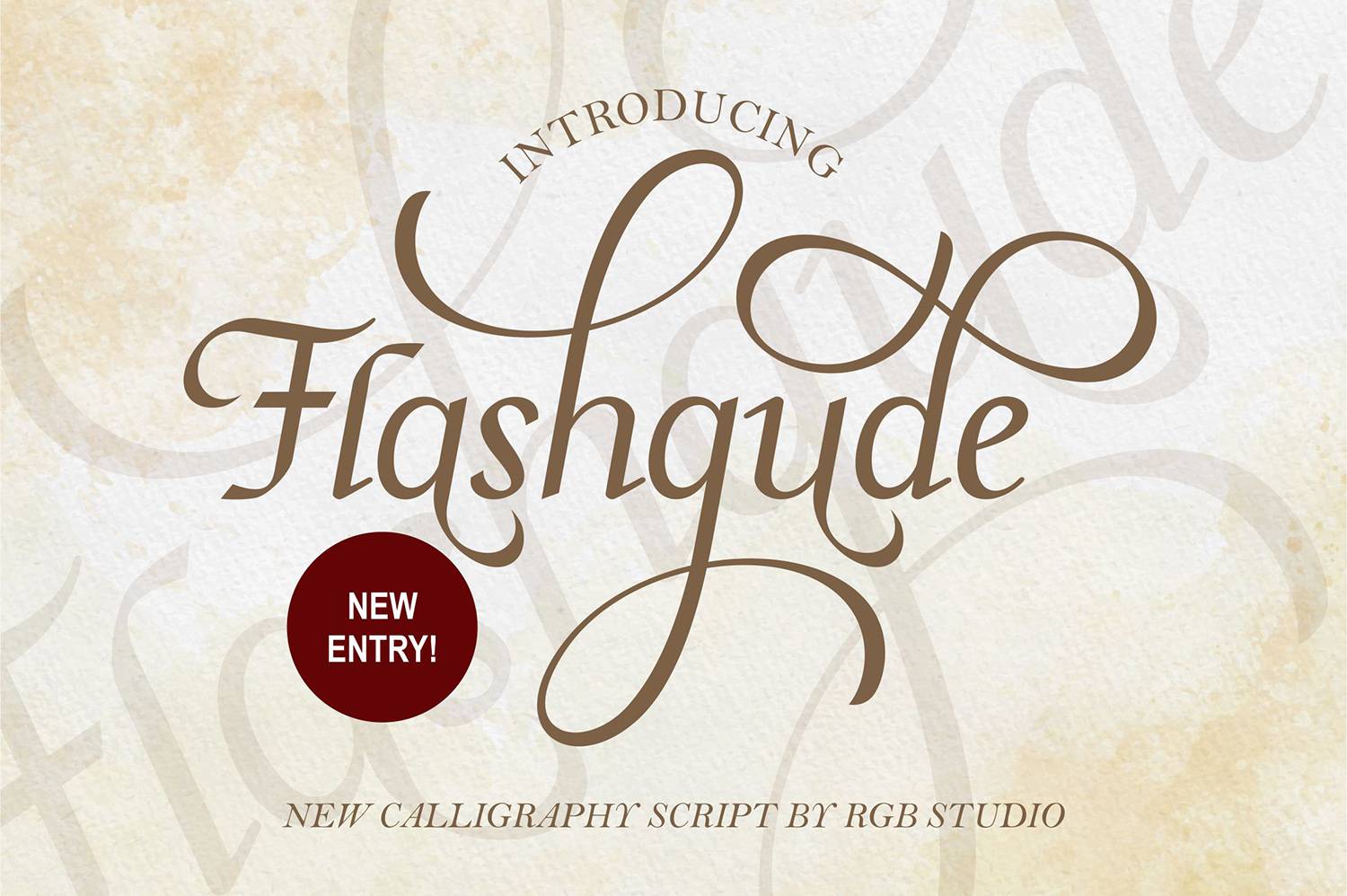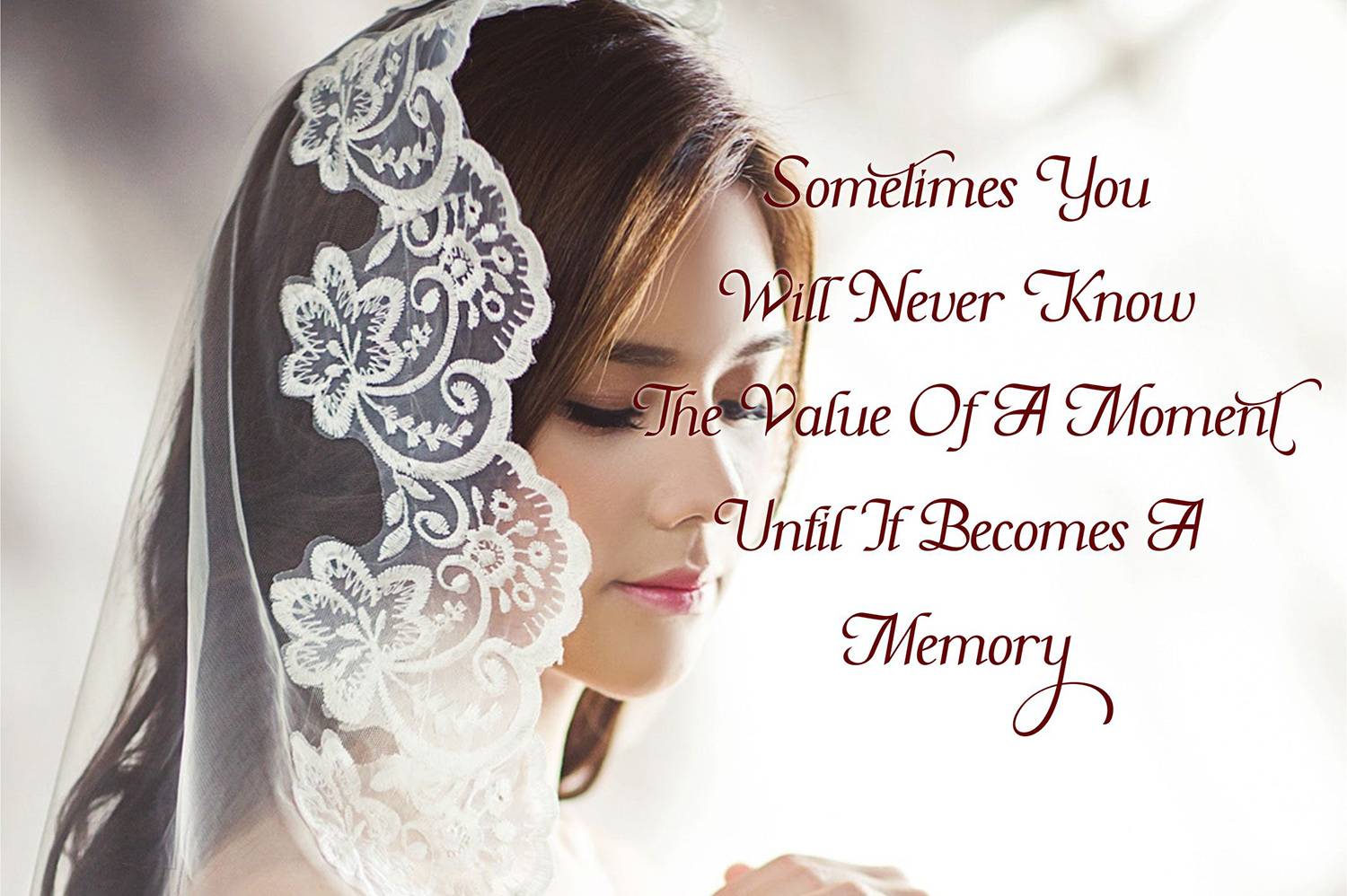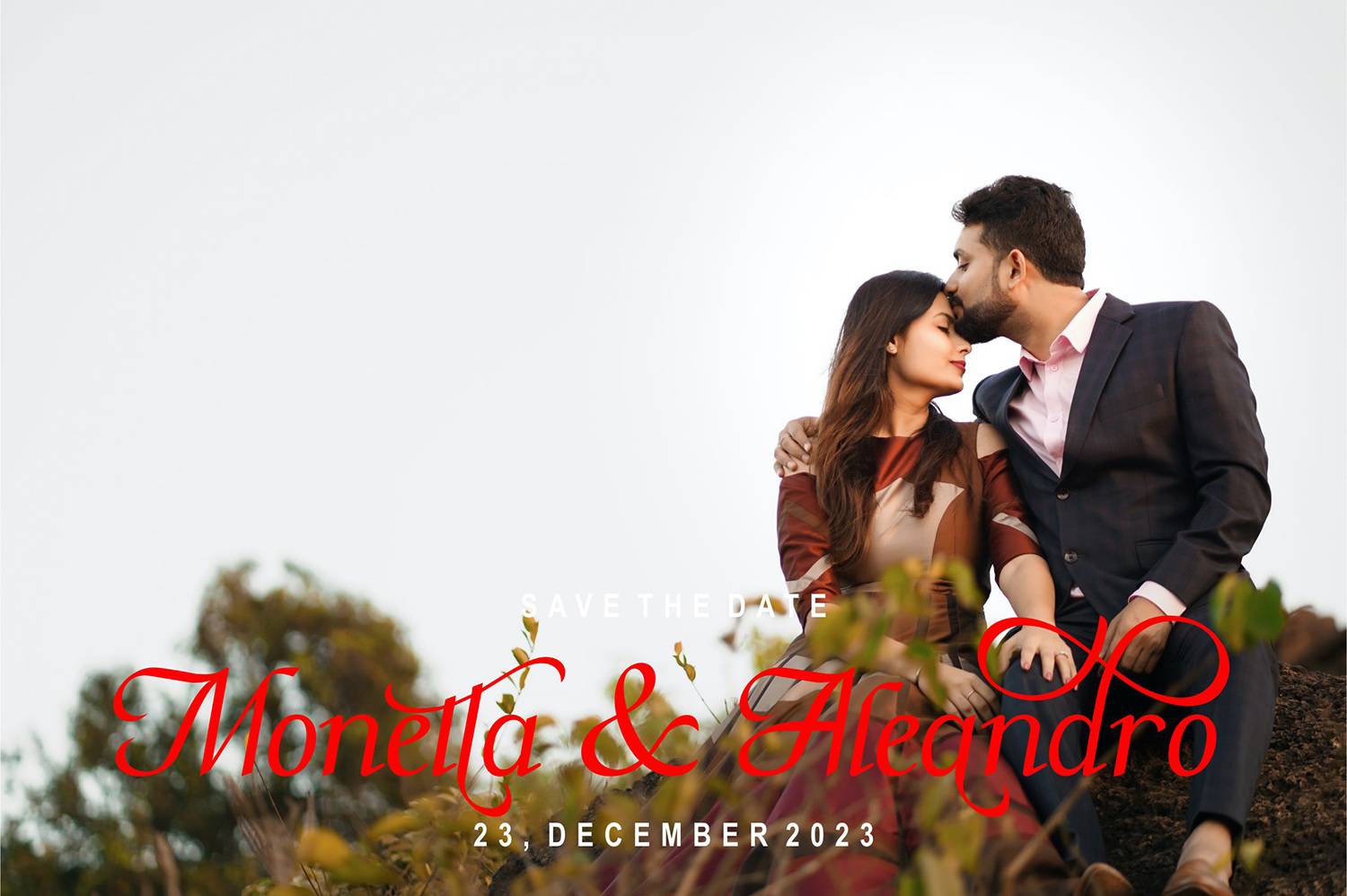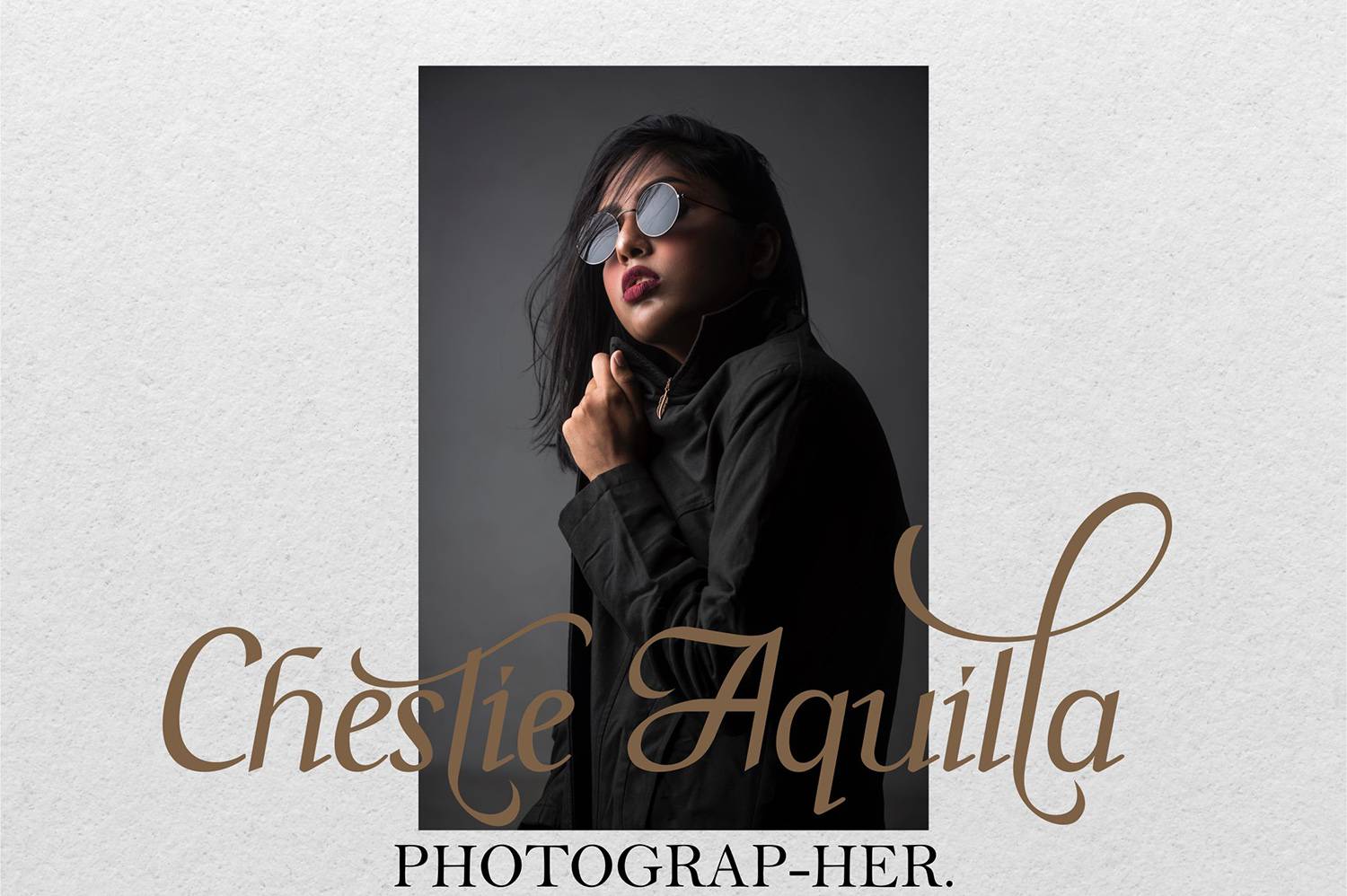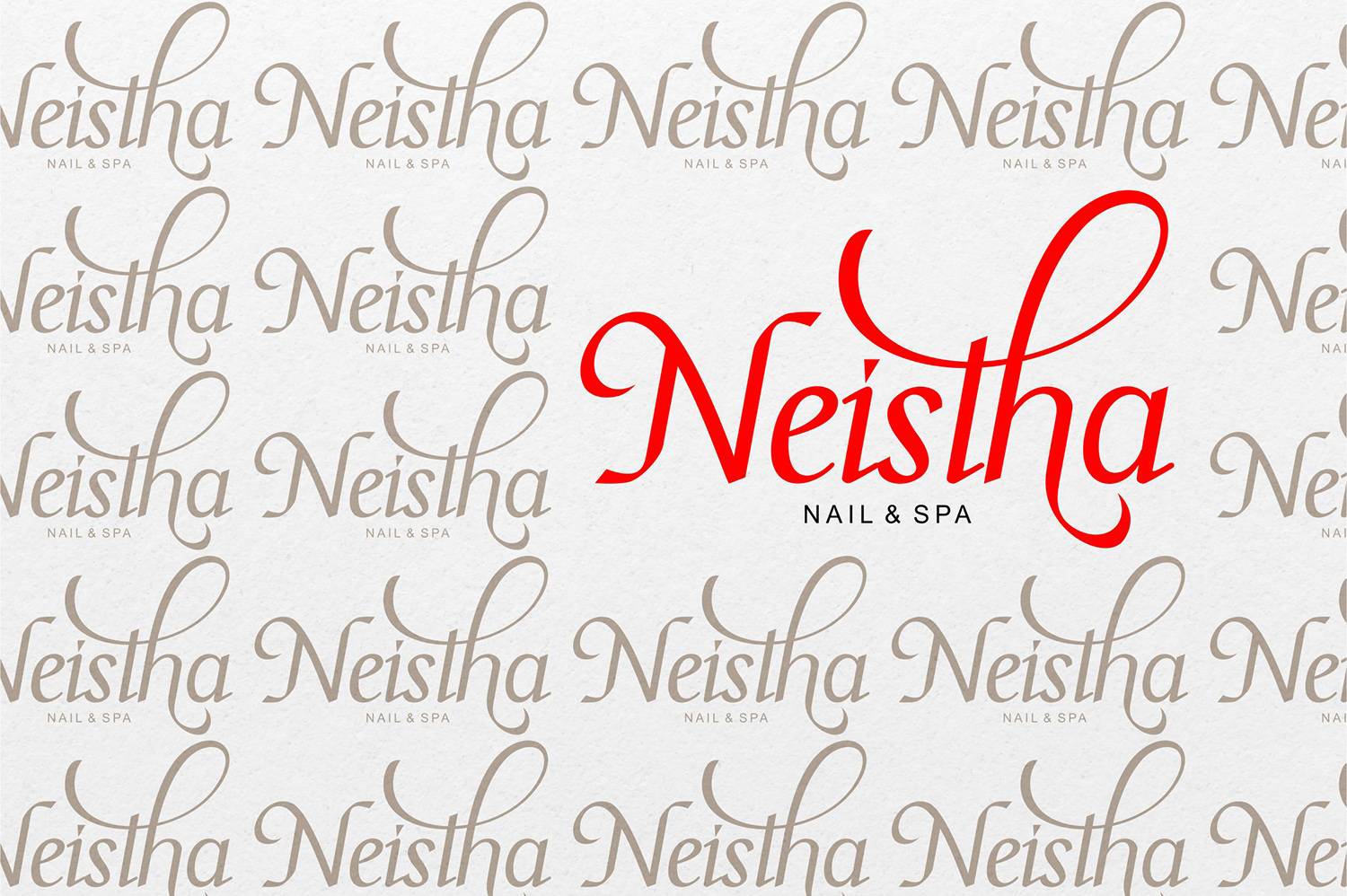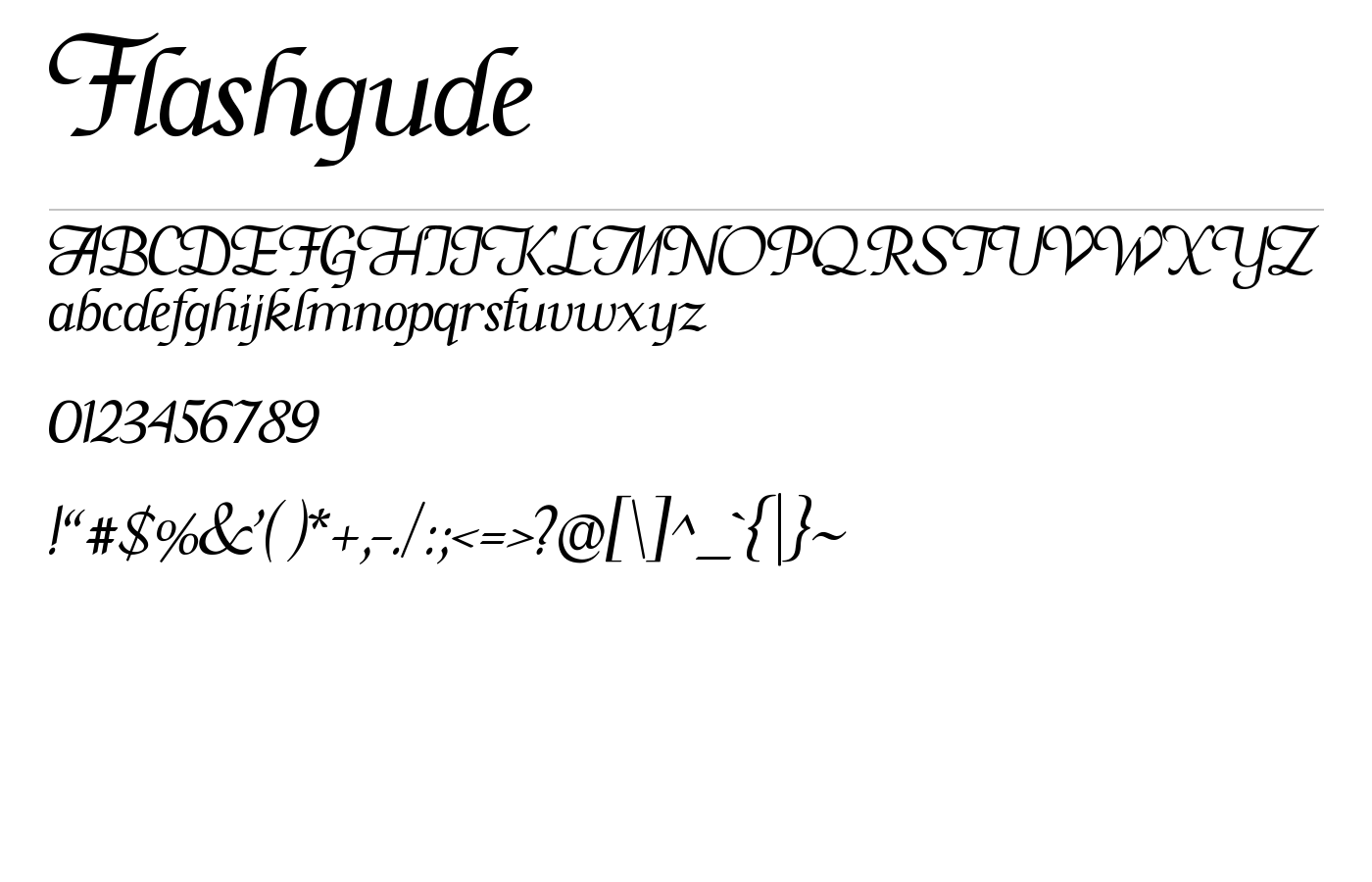
Flashgude is an elegant serif font with a classic, calligraphic flair, featuring smooth, flowing strokes and a slight italic angle that gives it a refined and graceful appearance. Its medium contrast and delicate serifs make it ideal for sophisticated branding, invitations, and editorial use where a touch of tradition and style is desired. This font works well in headlines or decorative text, conveying a timeless, artistic mood that suits luxury or formal contexts.
Flashgude Font